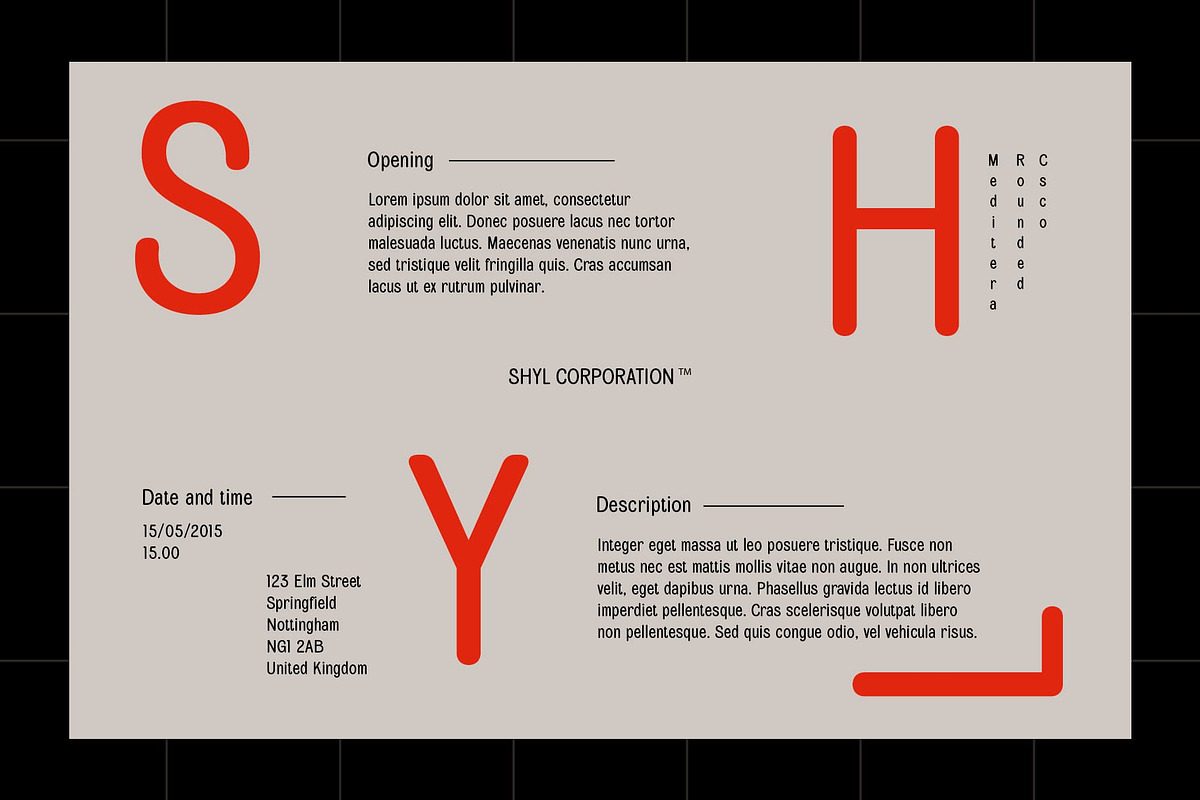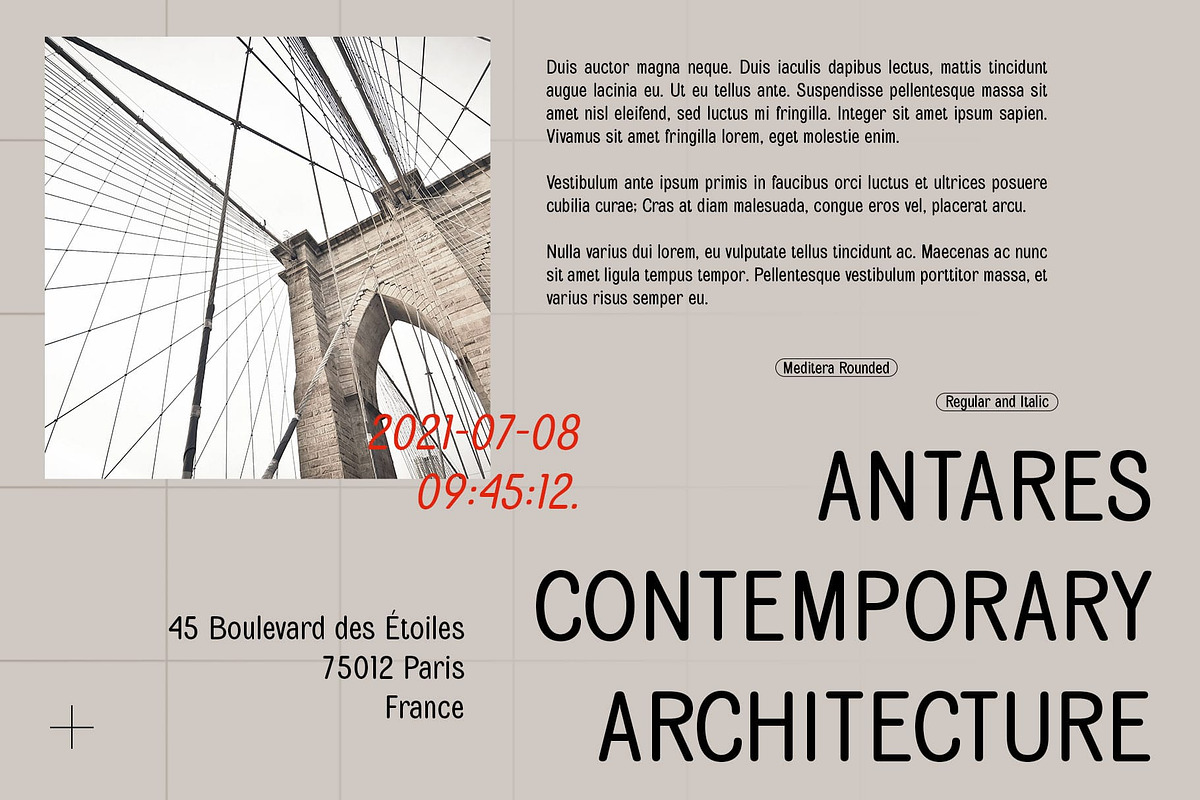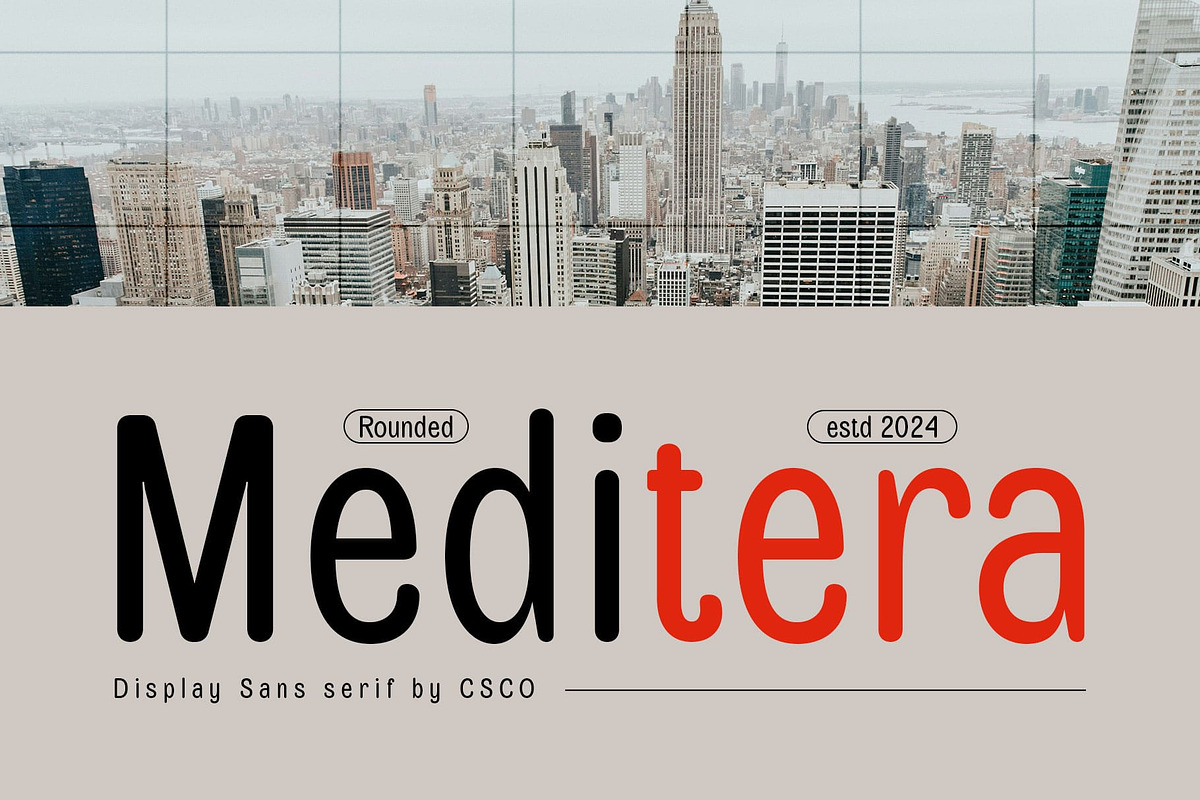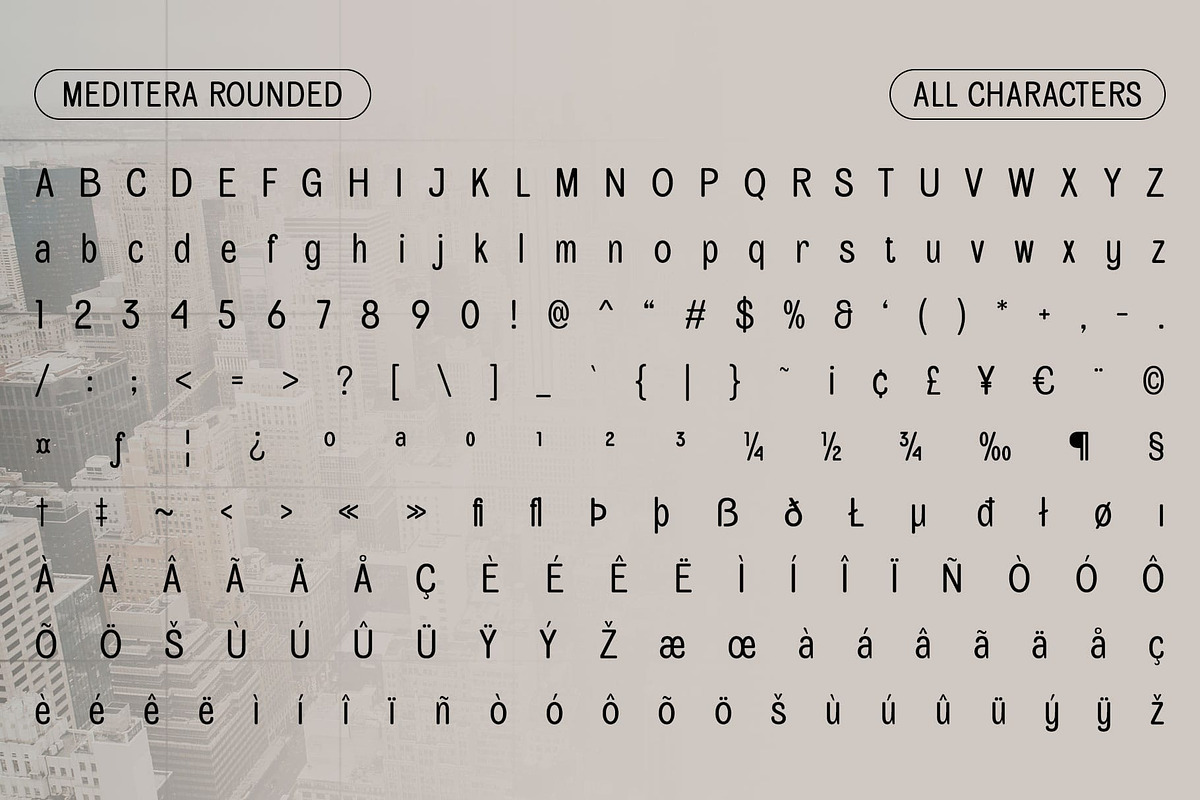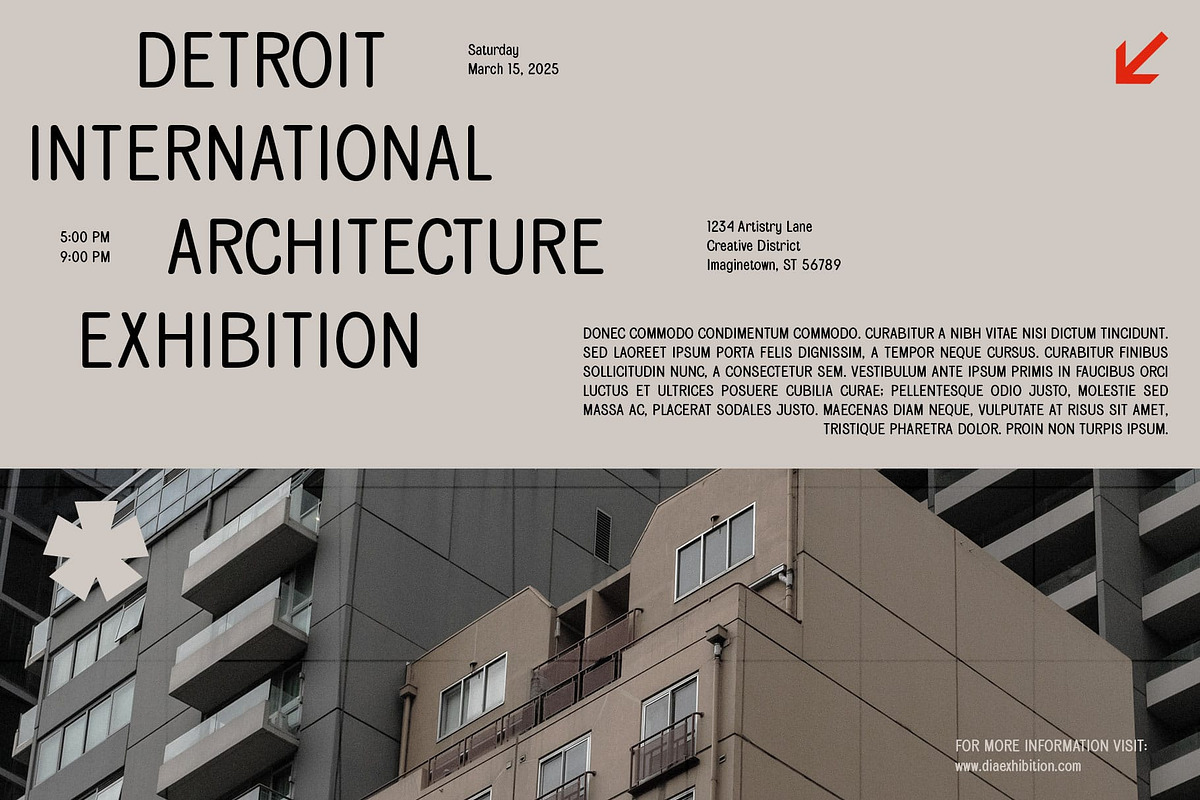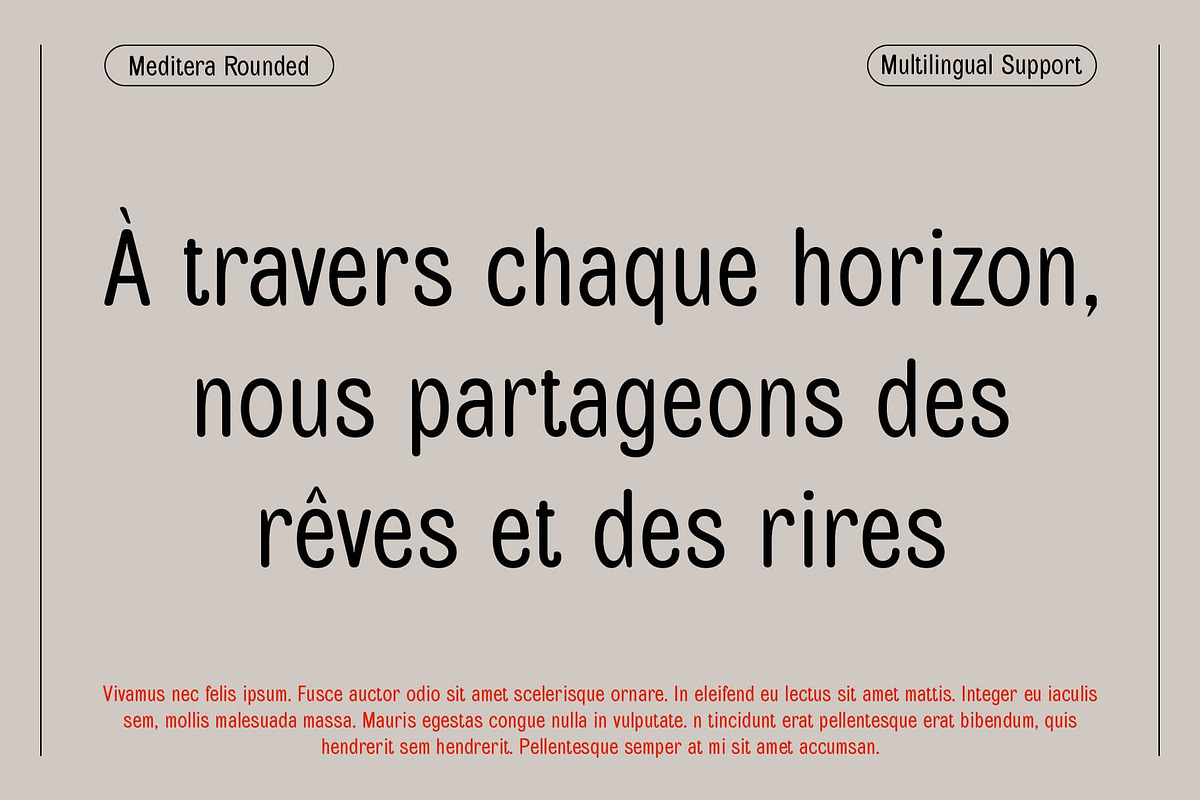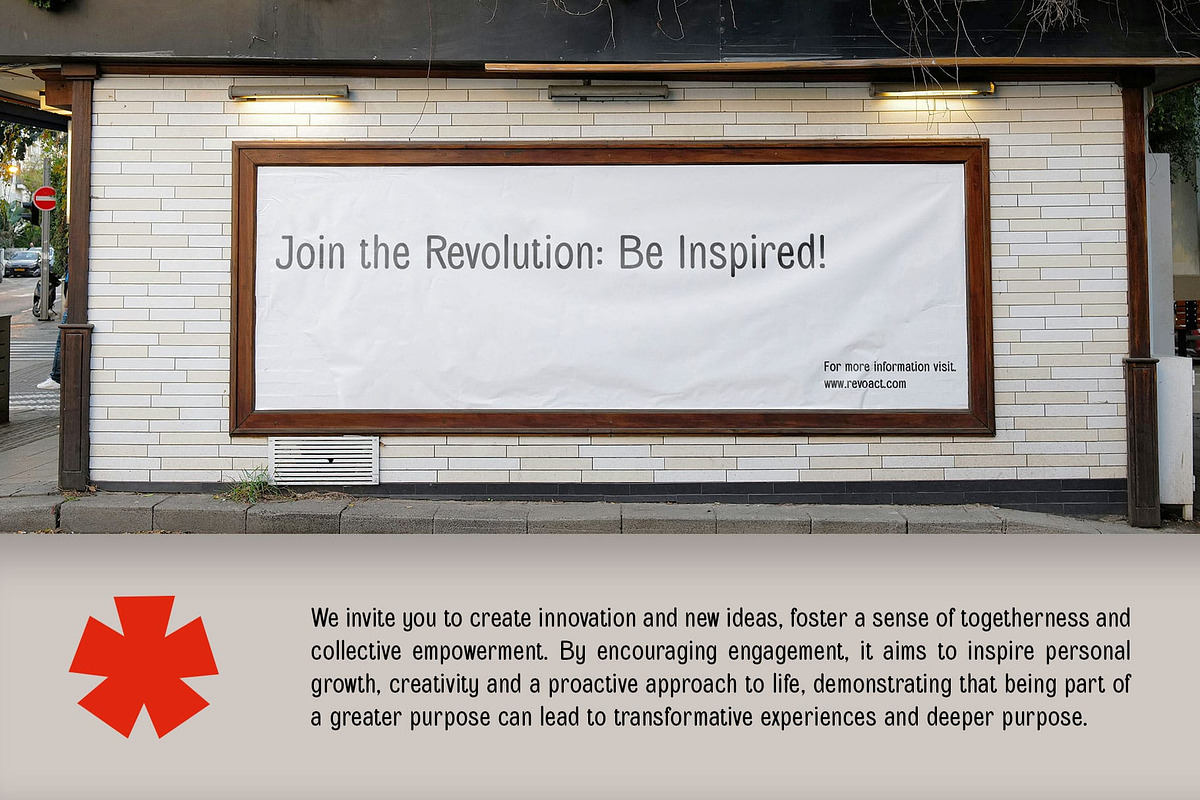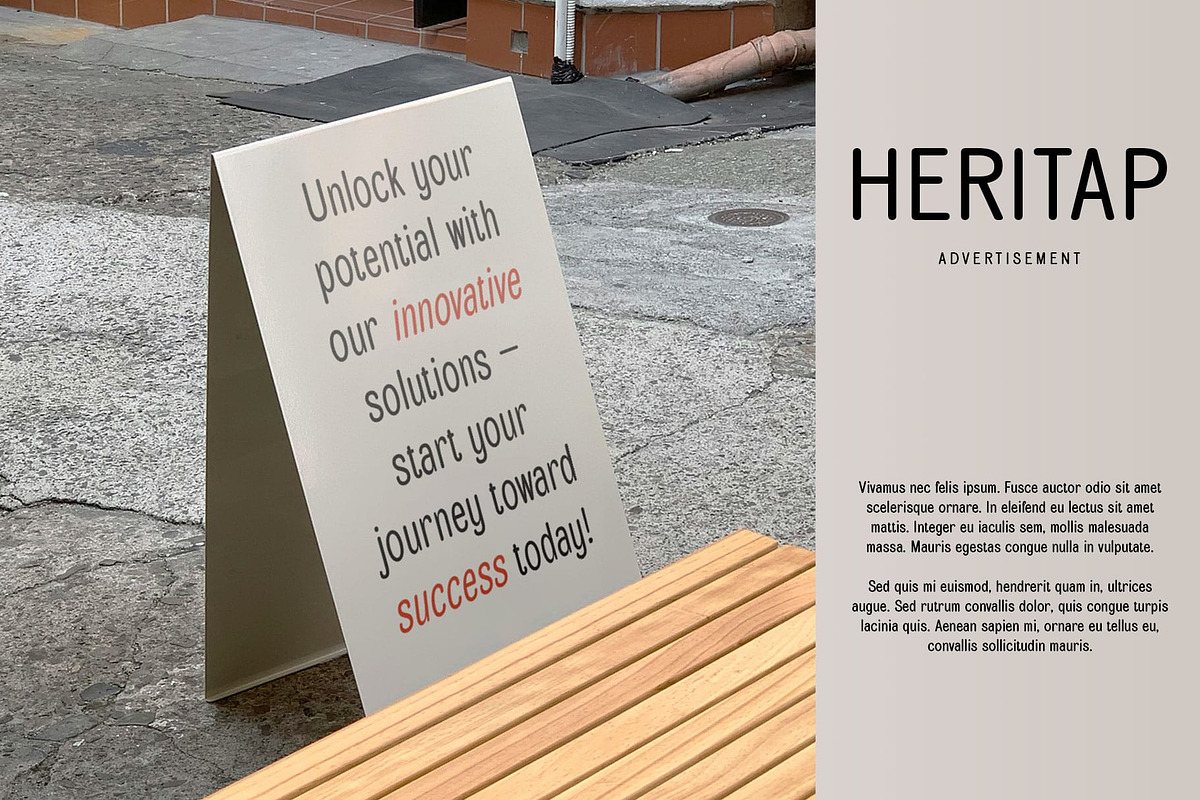
Meditera Rounded
Meditera Rounded – Modern Sans Serif Font: A Harmony of Elegance and Efficiency
Sleek and Soft Design Meditera Rounded is a modern sans serif font characterized by its condensed and rounded shapes. This unique combination of sleek and soft design elements creates a visually appealing aesthetic that stands out in any context. The condensed form maximizes space efficiency, making it perfect for applications where every inch counts, while the rounded corners evoke warmth and approachability.
Compact and Efficient The condensed nature of Meditera Rounded allows for a compact impression, ideal for designs that require clarity in limited spaces. Whether used in branding, advertising, or promotional materials, this font ensures that your message remains clear and impactful. Its efficient design doesn’t compromise on readability, making it a go-to choice for various applications.
Versatile for Diverse Applications Meditera Rounded’s clean and contemporary look makes it suitable for a wide range of design projects. From sleek corporate branding to vibrant marketing materials, this font adapts seamlessly to different styles and tones. The blend of boldness and softness in its letterforms offers an inviting character that appeals to audiences, enhancing your brand’s connection with viewers.
- Meditera Rounded Regular
- Meditera Rounded Italic